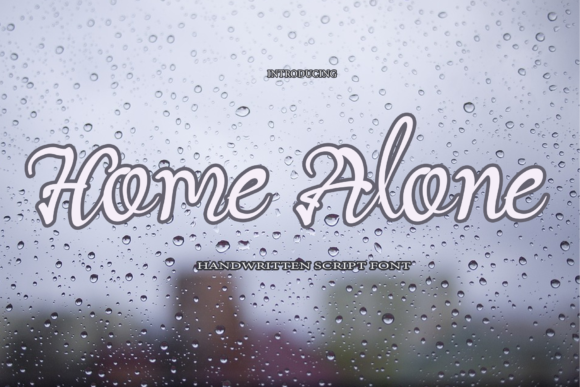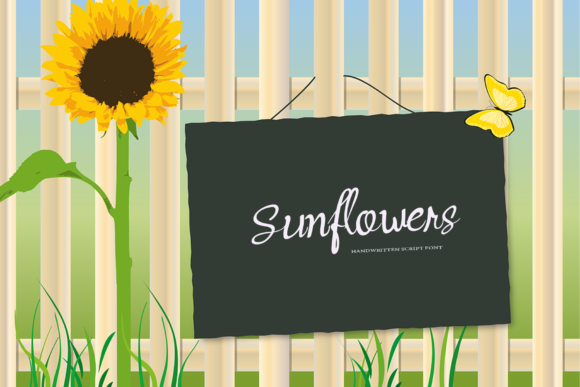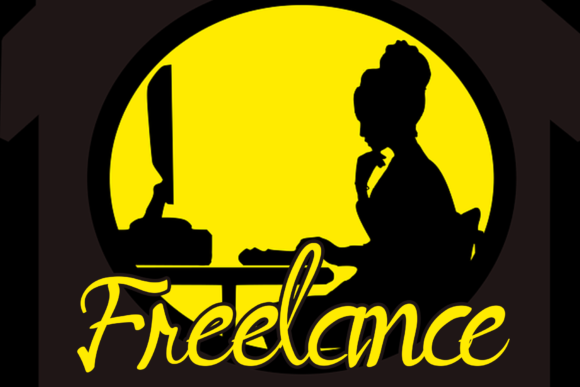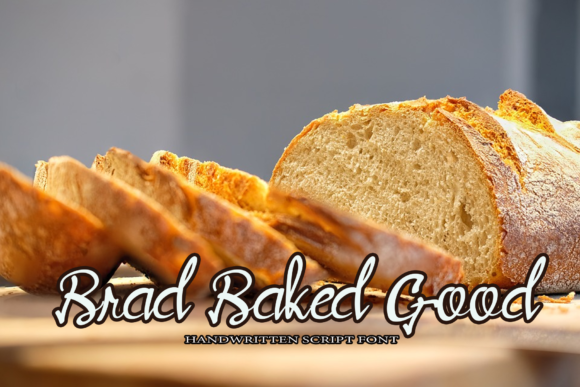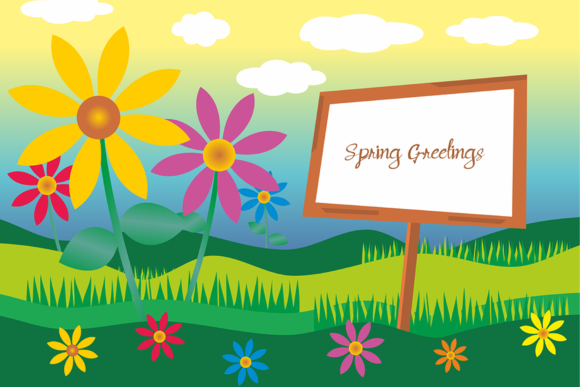
Home Alone Font
Home Alone is a splendid, versatile and flowing script font. It has an elegant and modern look that can be used for logos, branding, invitations, stationery, wedding designs, social media posts, and much more!